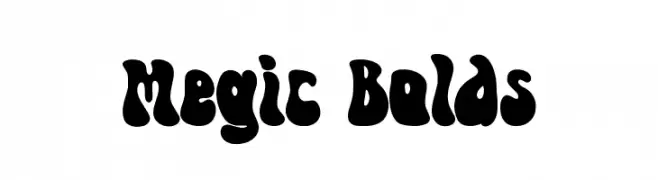
A sleek, narrow, and italicized modern font with a professional aesthetic.
A bold, playful font with rounded, exaggerated shapes for a whimsical look.
An elegant, cursive handwritten font with flowing, interconnected strokes.
A dynamic handwritten font with fluid, expressive strokes.
A bold serif font with high contrast and elegant design.
An elegant italic font with bold strokes and dynamic slant.
A bold, graffiti-inspired font with dynamic, sweeping strokes and artistic flair.
A high-contrast, elegant font with elongated strokes and a modern flair.
An elegant italic font with high contrast and sharp serifs.
A bold, decorative font with a medieval, gothic flair and unique embellishments.